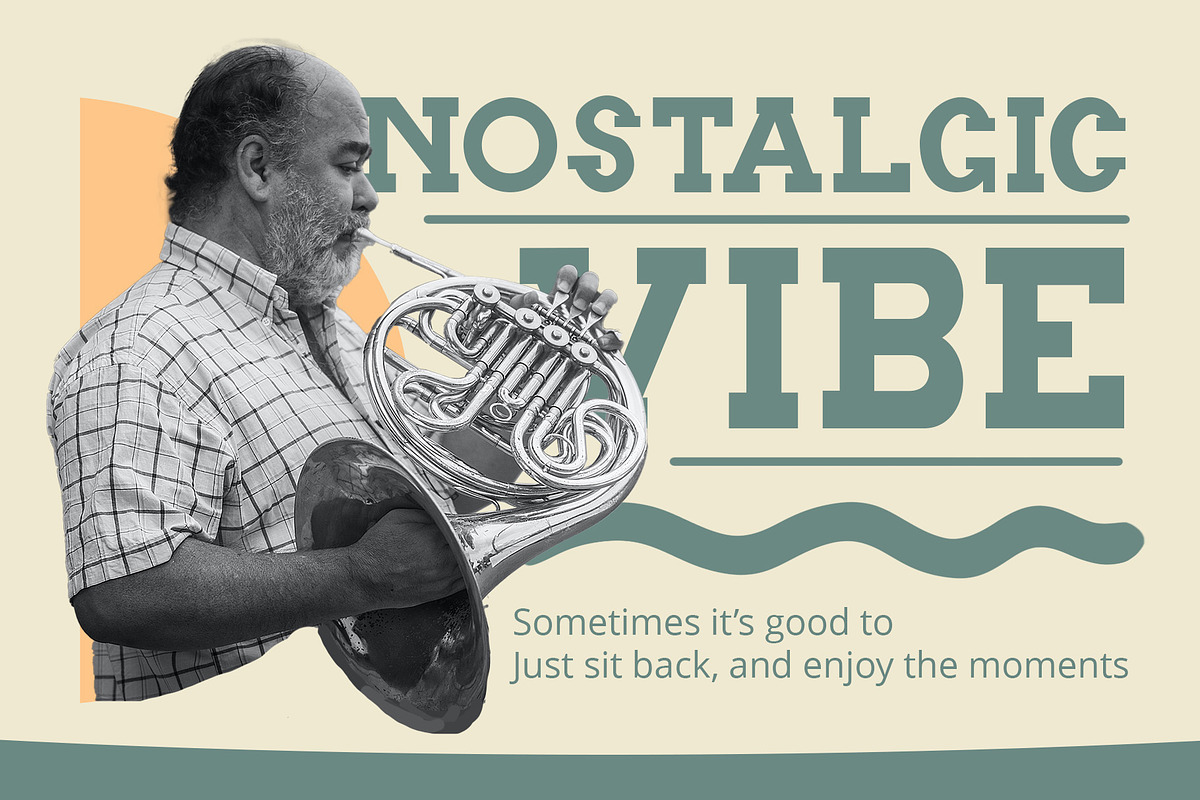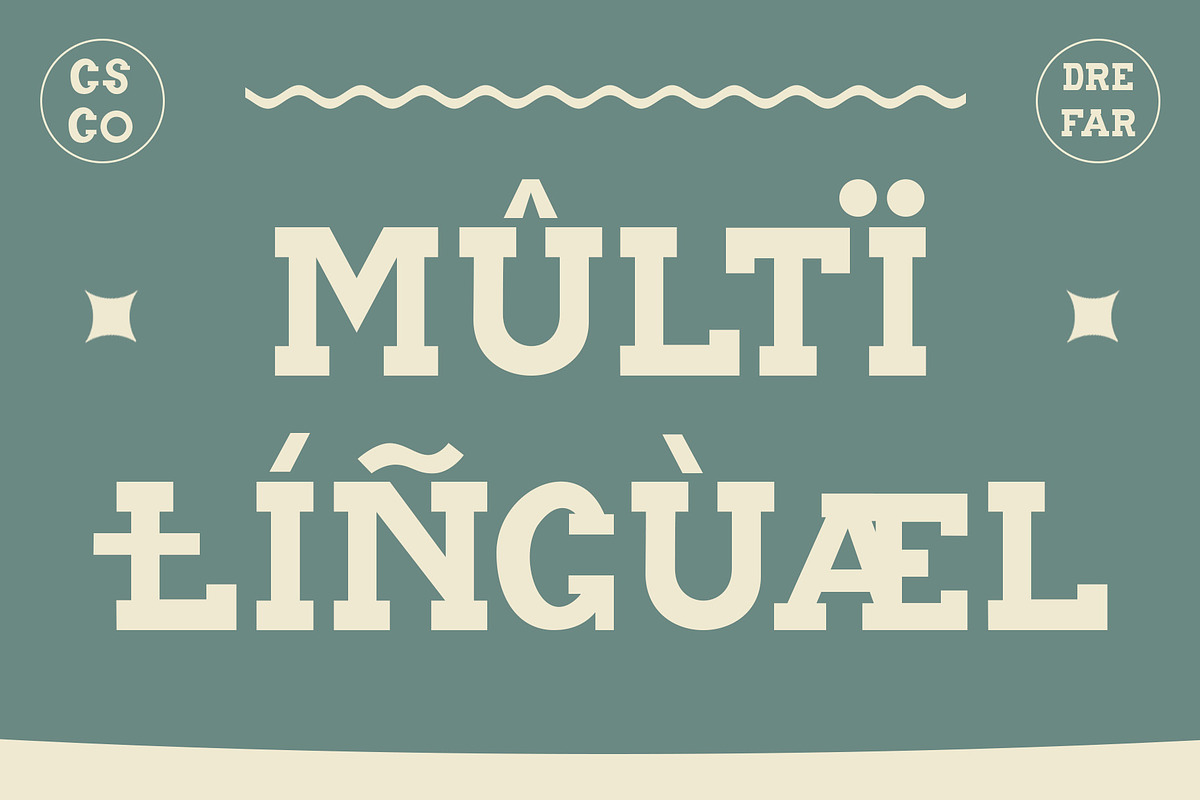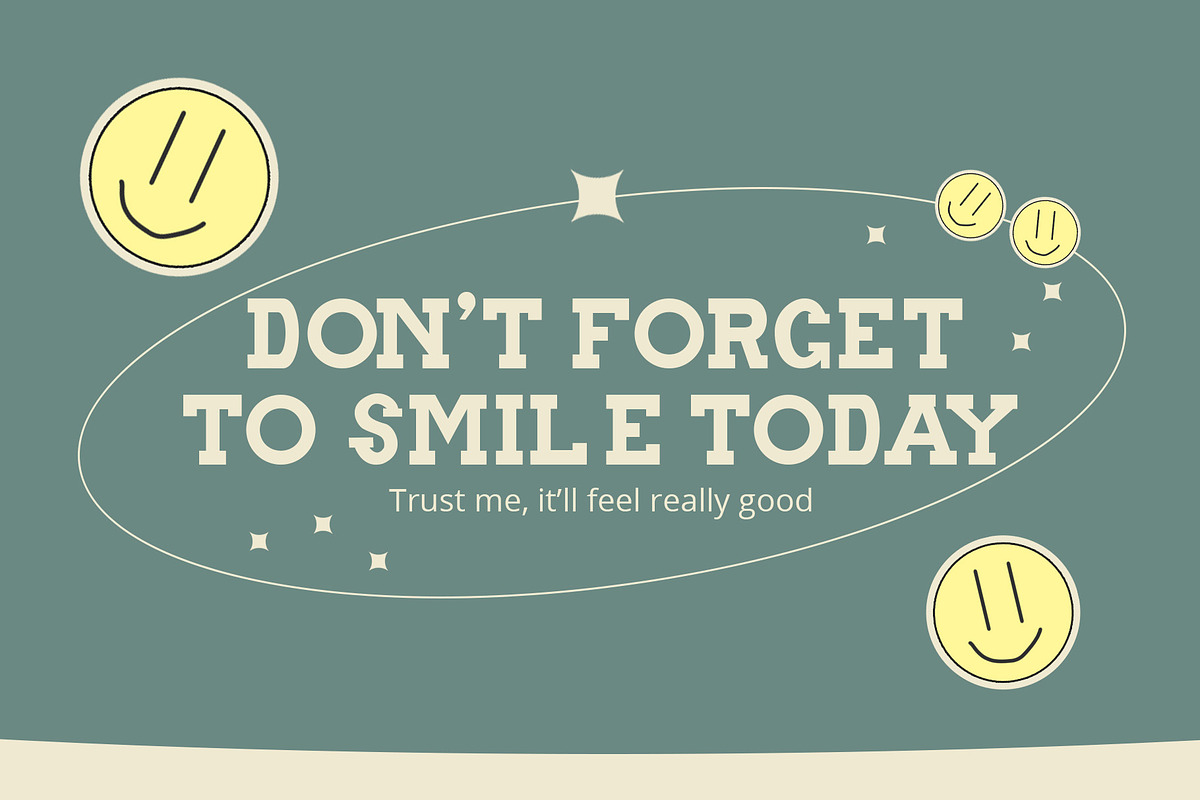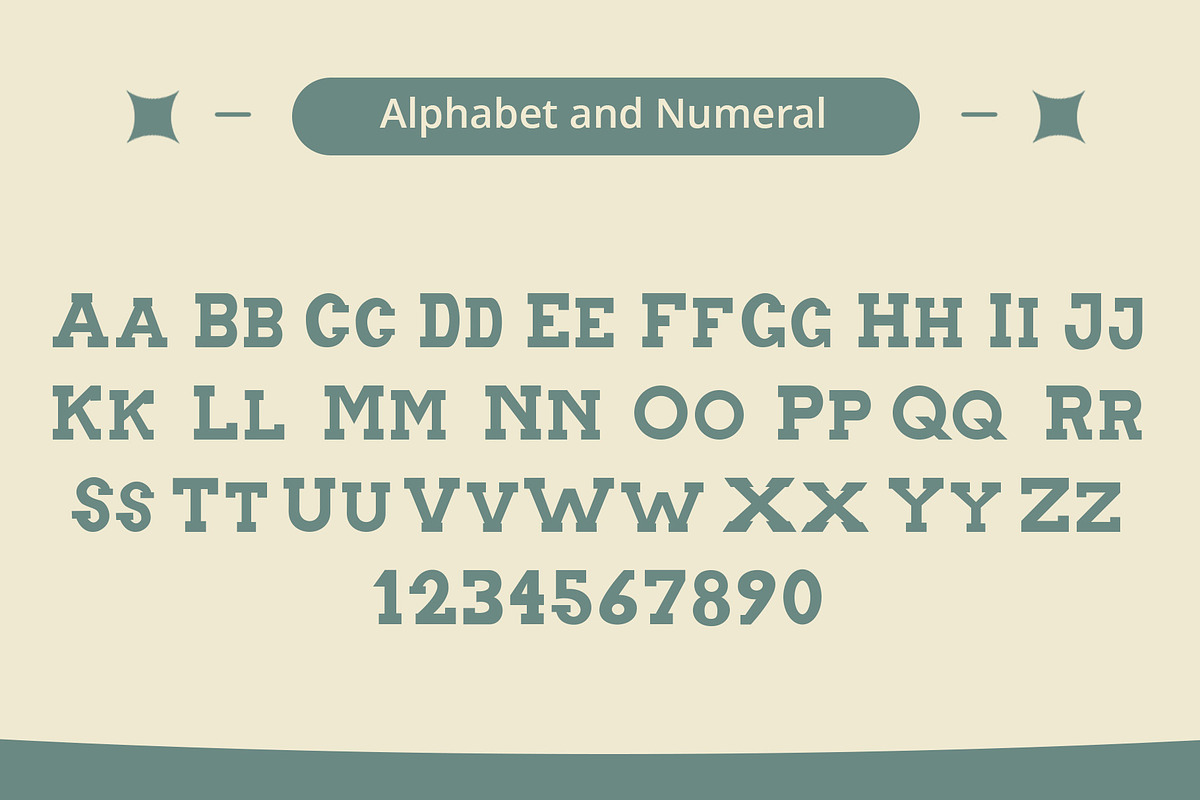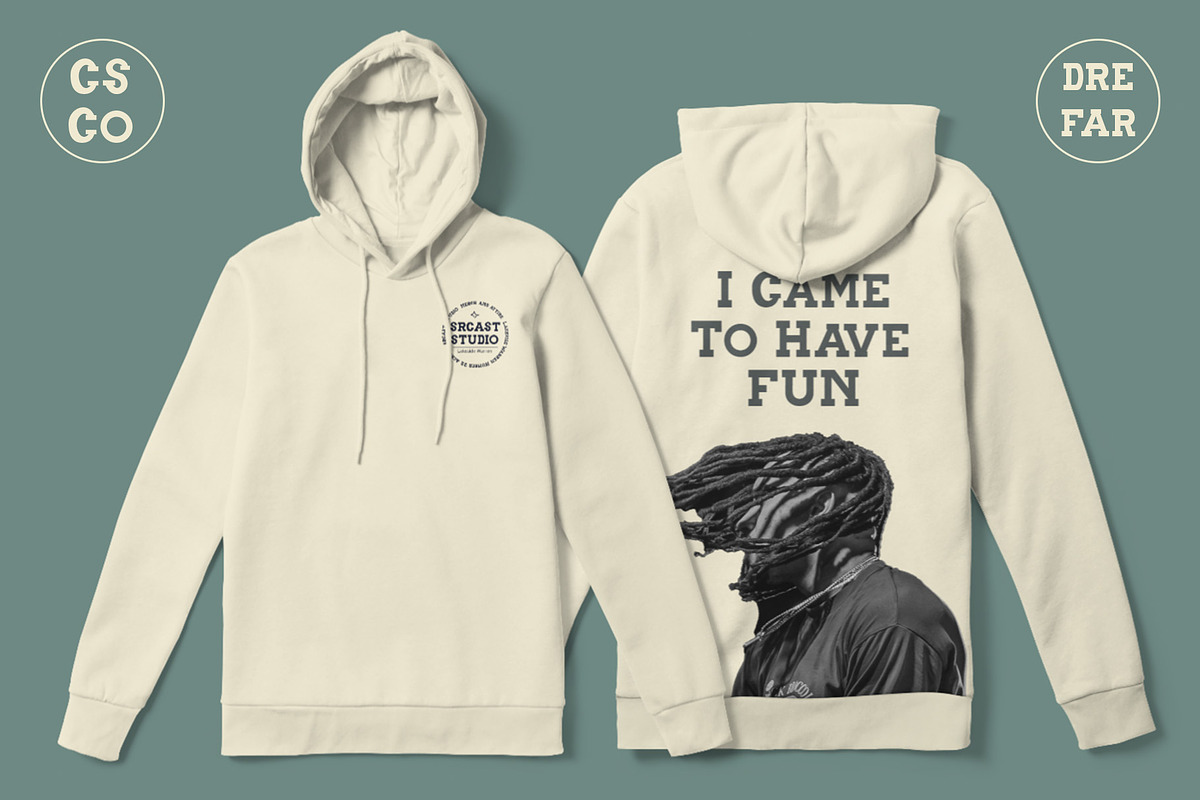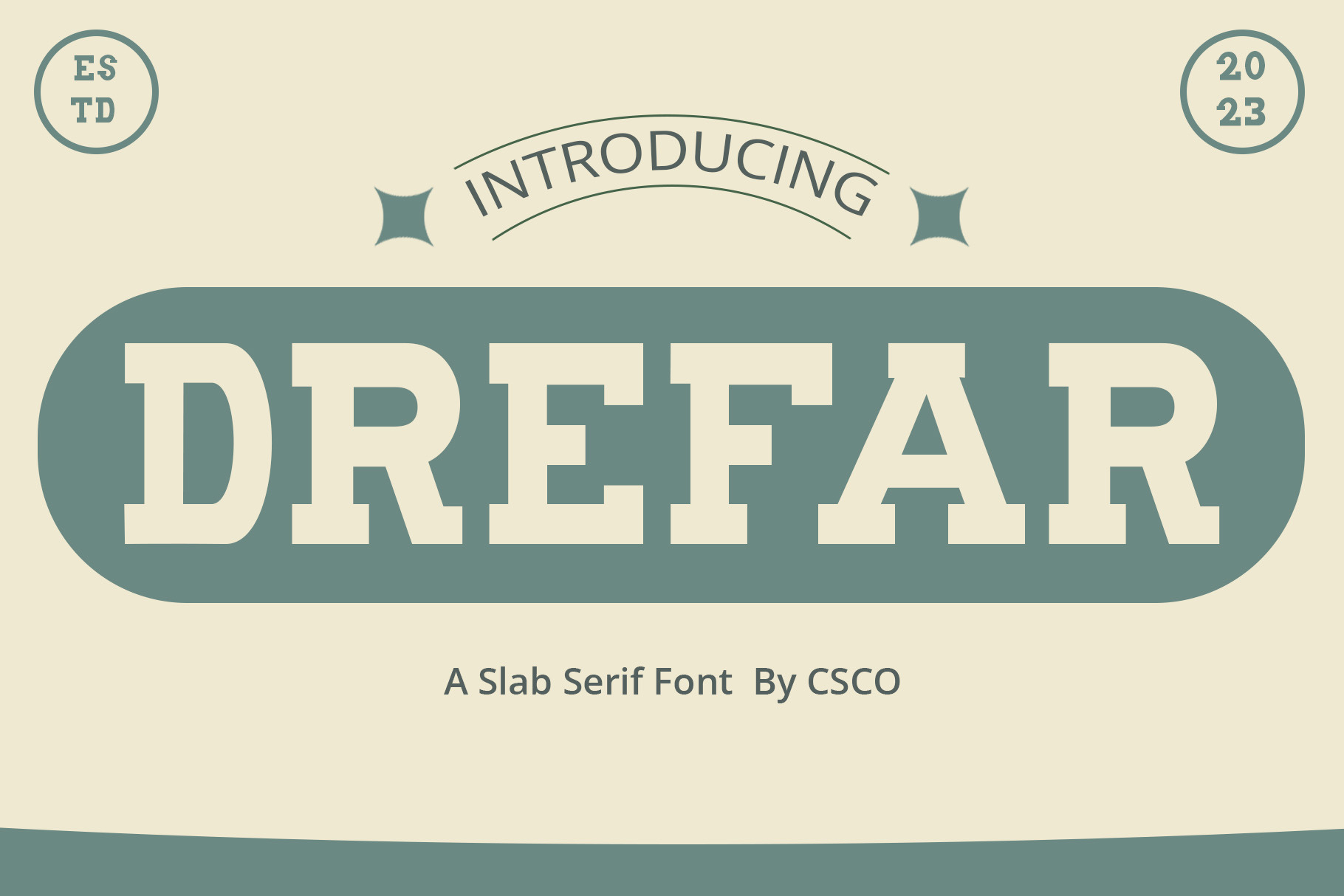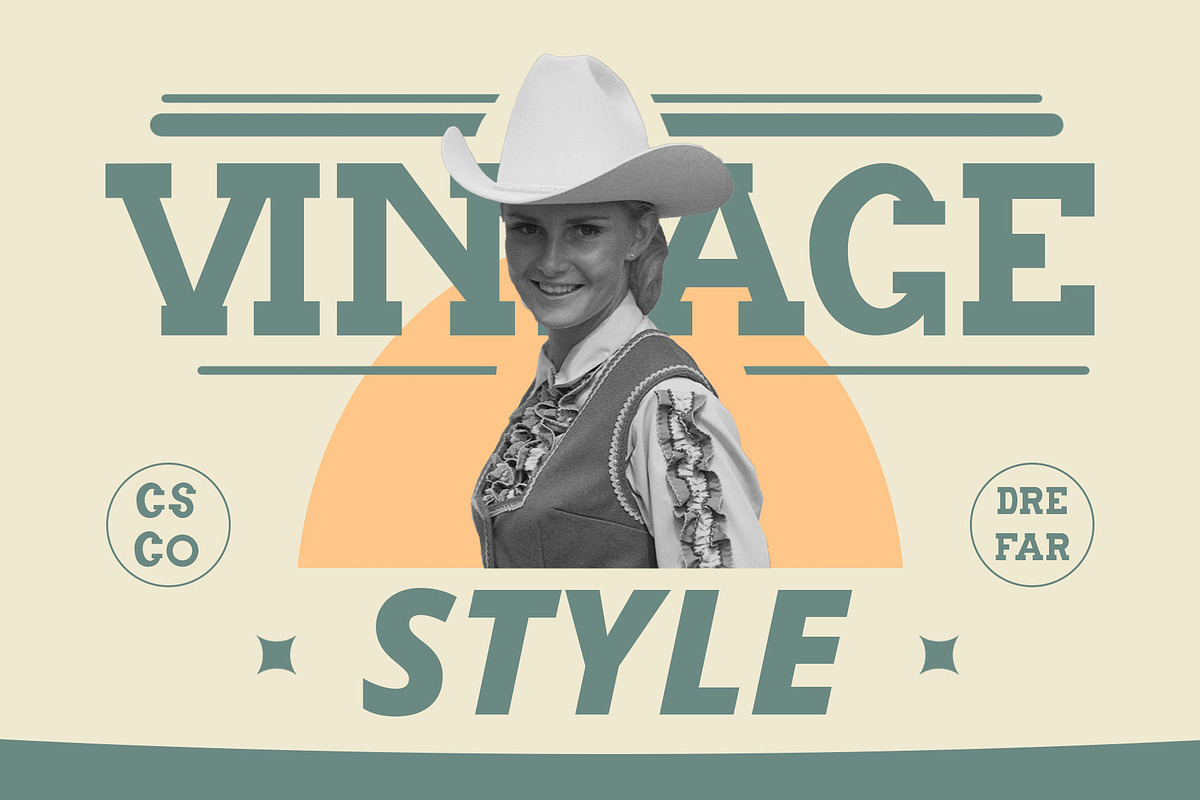
Drefar – Slab Serif Font
Introducing Drefar – Slab Serif Font
The Masculine Casual Blend
Drefar – Slab Serif Font is a striking fusion of masculinity and casualness, making it a perfect choice for displays.
Bold and Rugged
Drefar’s bold and rugged appearance conveys strength and resilience, making it ideal for projects that require a robust presence.
Informal Versatility
This font’s informal nature lends itself to versatile applications, from posters to headlines and more, without sacrificing its bold character.
Confident Typography
Drefar is a font that exudes confidence. Its slab serifs and well-defined lines provide a sense of clarity and determination.
In Conclusion
In summary, Drefar – Slab Serif Font is the font that marries masculine and casual elements, offering bold, confident typography for your display needs. Its versatile and rugged nature ensures that your content carries a commanding presence, engaging a wide range of readers and viewers. Whether it’s posters, headlines, or other design projects, Drefar ensures your message is delivered with strength and determination.